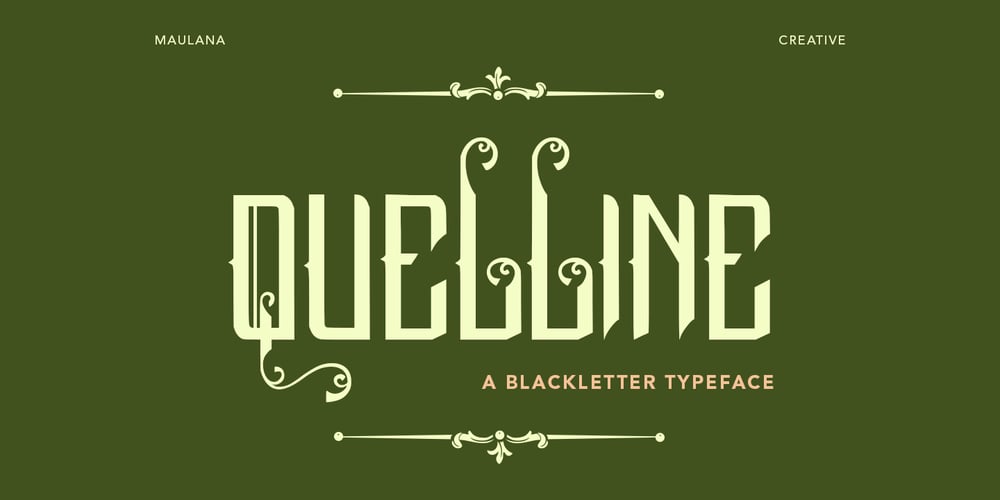
Quelline Font Family was designed by Gilang Maulana and published by Maulana Creative. Quelline contains 1 styles and family package options. Introducing Quelline Font. Are you looking for a bold handlettering decorative font that has a medieval gothic feeling? We can help! Try to download our Quelline Font. Suitable to use for any occasion such as book, logo, print, game, event, music, invitation and others.Thanks!